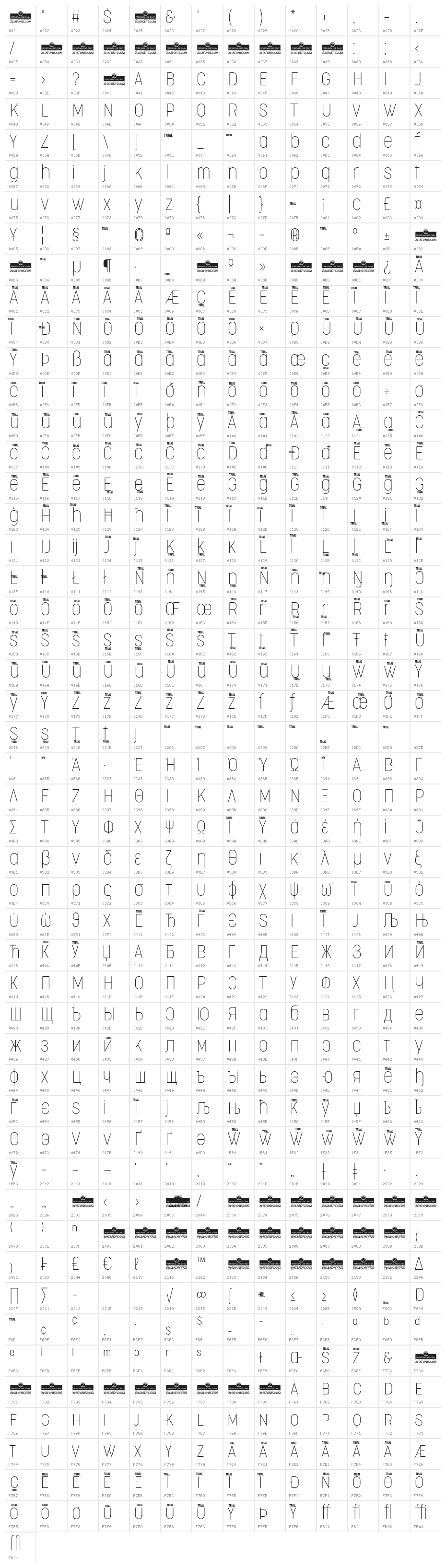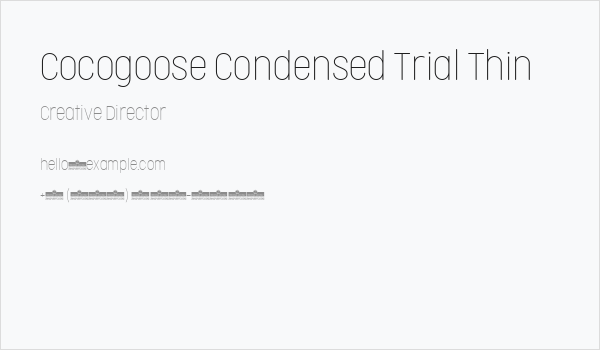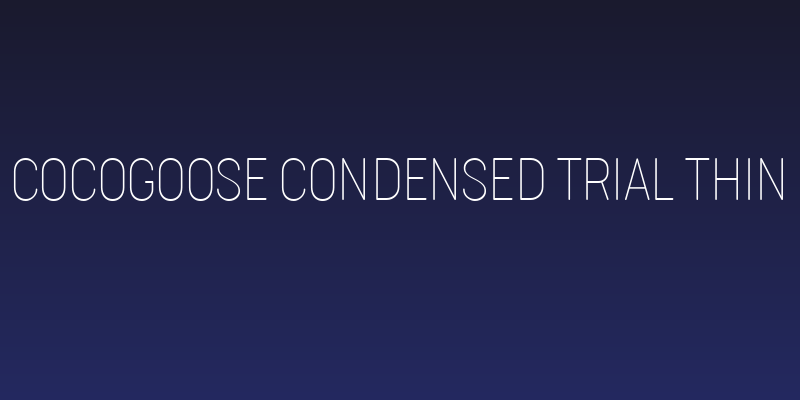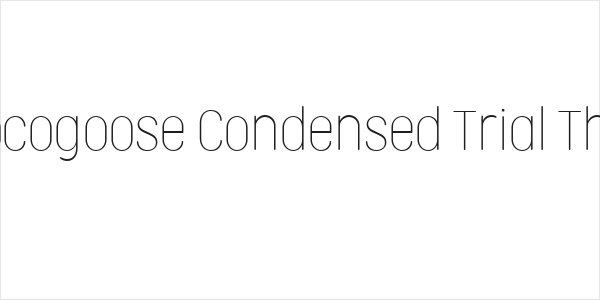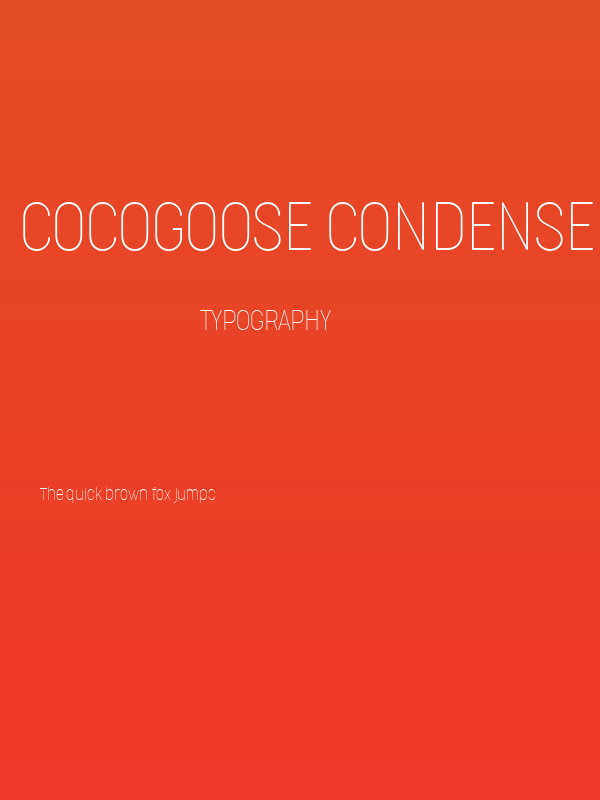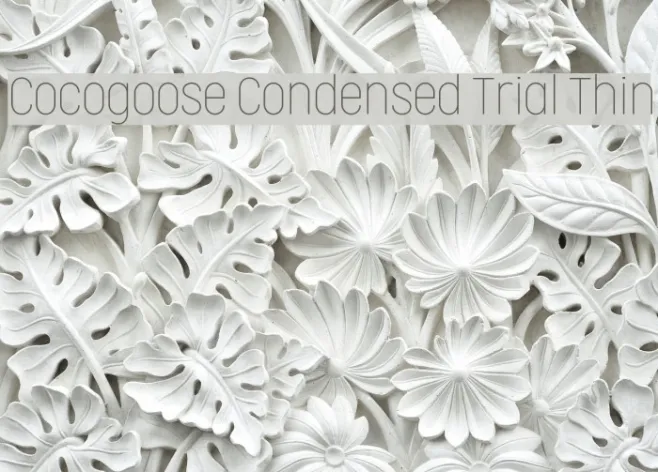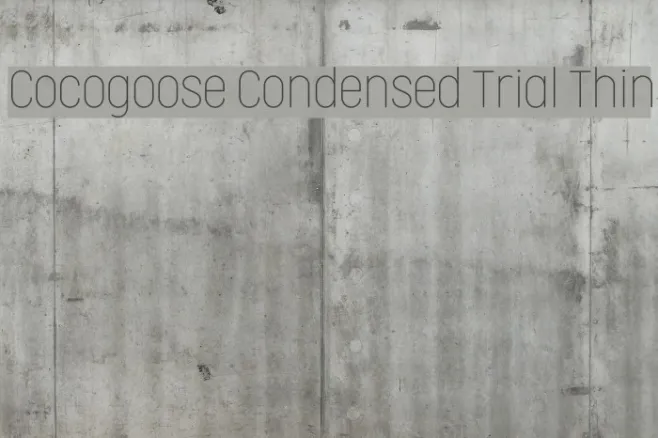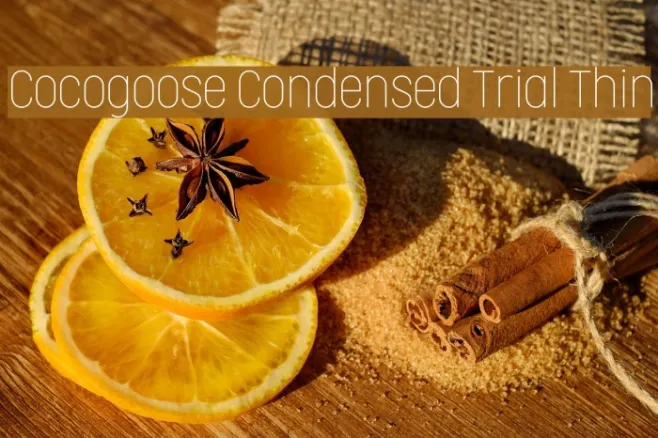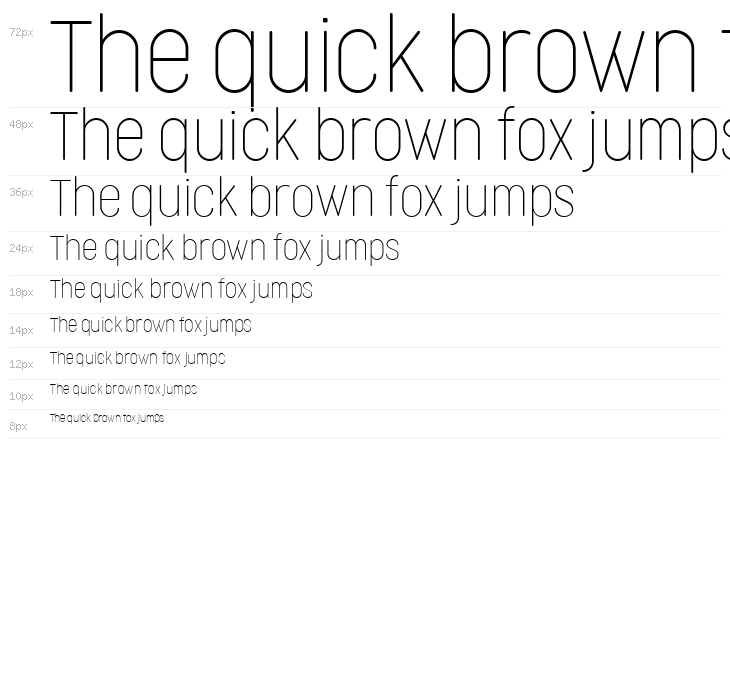
Cocogoose Condensed Trial Thin Font
Cocogoose Condensed Trial Thin Description
This font features a sleek, modern design with a condensed structure, emphasizing verticality and minimalism. The thin strokes give it a light and airy appearance, making it suitable for contemporary design projects. The uppercase and lowercase letters maintain a consistent geometric style, while the numerals and special characters are crafted to complement the overall aesthetic. The font's clean lines and uniform spacing enhance readability, making it versatile for various applications.
| Use Case | Headlines, Logos, Digital interfaces |
| Proposed Projects | Ideal for branding, editorial design, digital interfaces, and minimalist posters. |